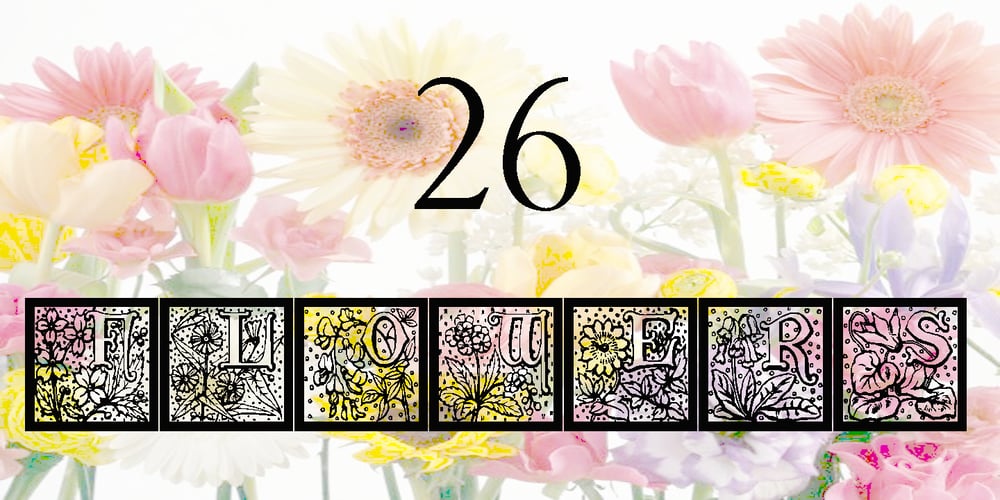
26 Flowers Font Family was designed by Jose Jimenez and published by Celebrity Fontz. 26 Flowers contains 1 styles and family package options. 26 Flowers is a digital revival and restoration of a beautiful collection of 26 individually unique ornamental letters from historical texts. Each of the 26 letters of the alphabet are contained in a square frame with a different flower in the background and an antique letter in the top right corner; hence, the name 26 Flowers. This highly ornamented typeface is perfect for leading off paragraphs or in any text dealing with the subject of flowers.